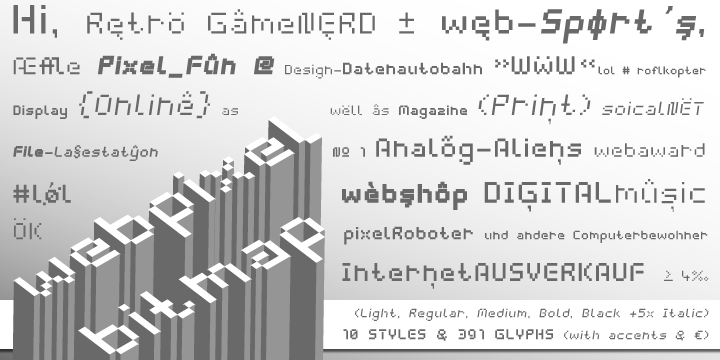
Headline Font / Display Font / Pixel Bitmap Font "Web Pixel Bitmap" with 10 stlyes (regular, medium, bold, black, light + 3x italic) & 391 glyphs inkl. accents & € INFO If you want to use this font for commercial projects, please contact me: manuel.viergutz[at]gmx.de or donate an amount greater-than-or-equal EUR 19 / $ 29 (for commercial licence). I also appreciate it if you send me links /images of your (non)-commercial work featuring this font. |